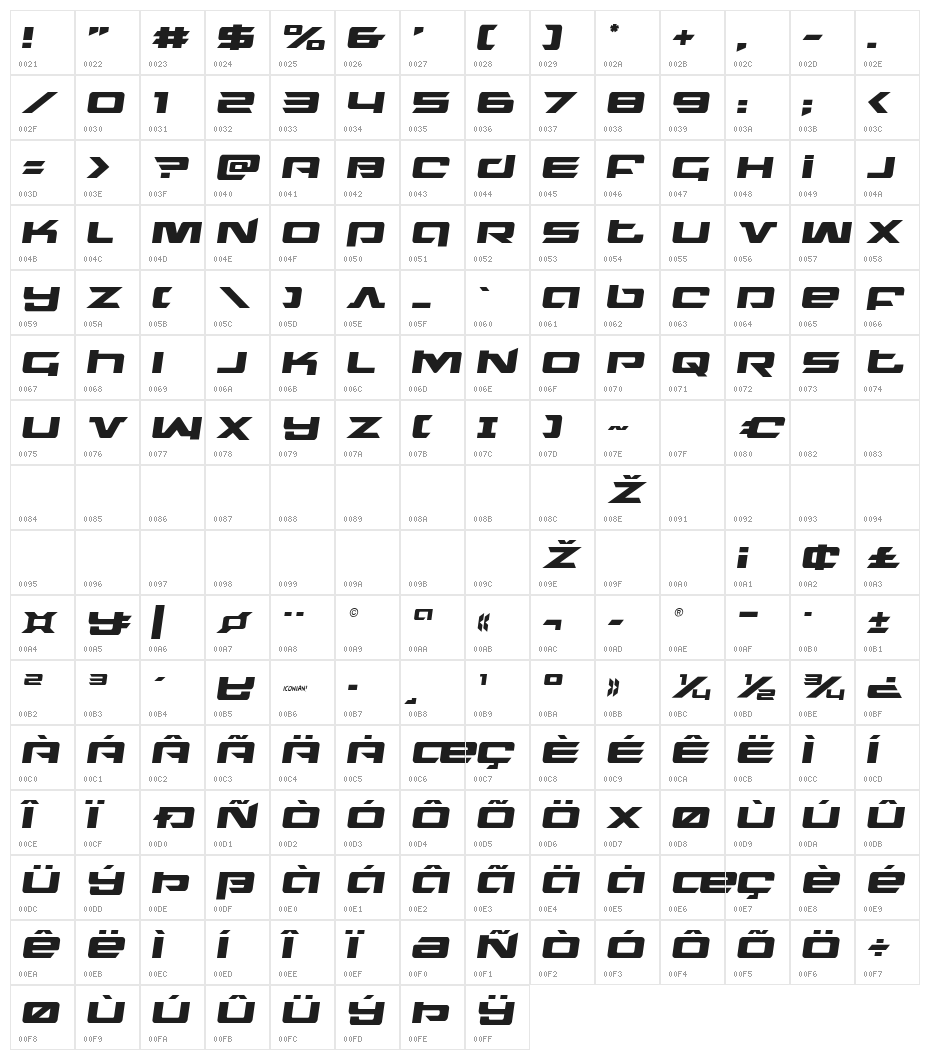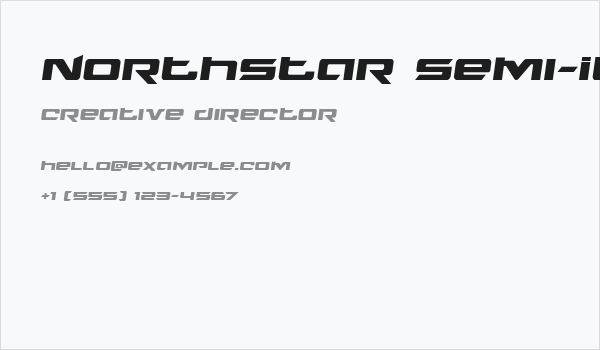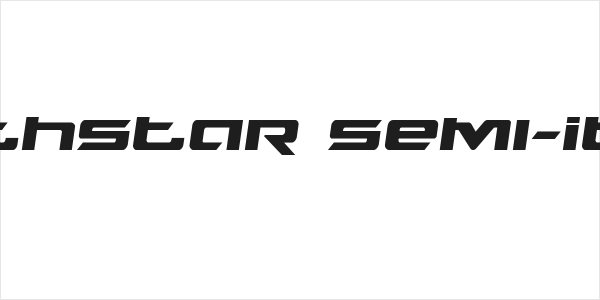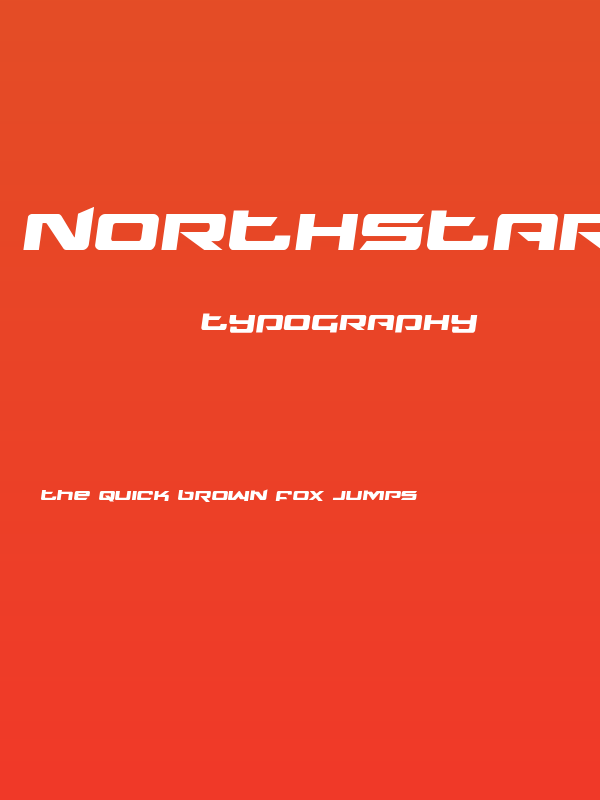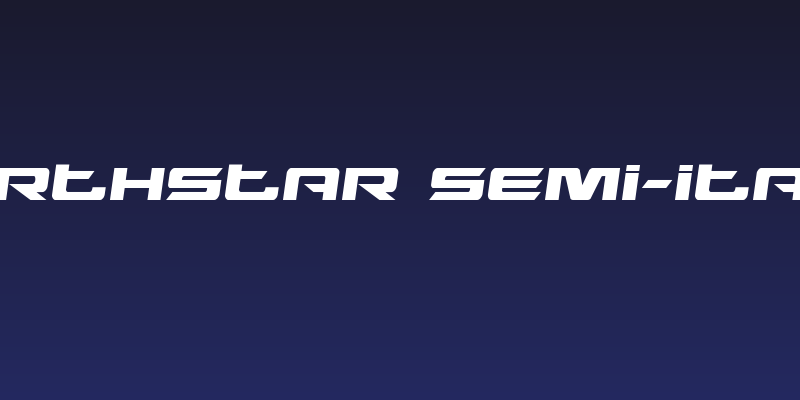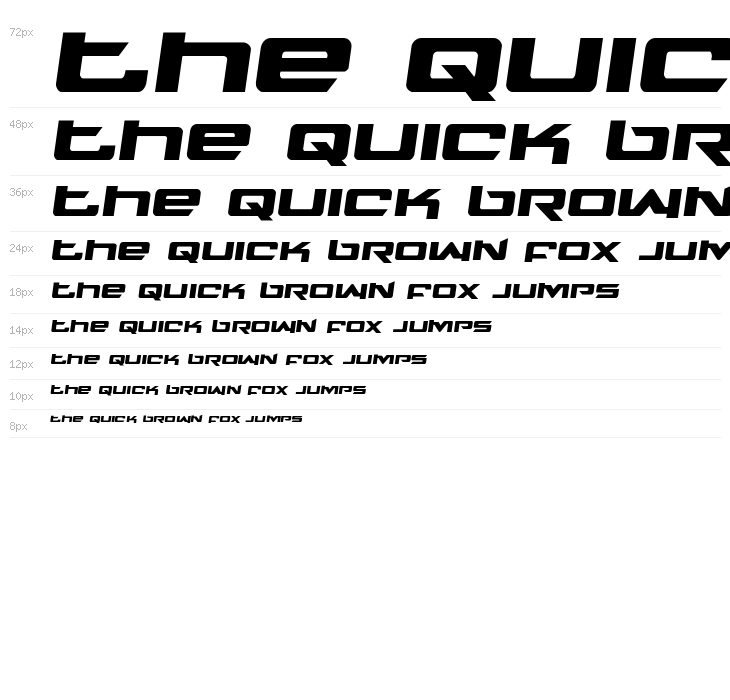
Northstar Semi-Italic Font
Northstar Semi-Italic Description
This font features a futuristic and angular design, characterized by its sharp edges and dynamic slant. The semi-italic style adds a sense of motion and modernity, making it stand out in any design. The uppercase and lowercase letters maintain a consistent geometric structure, while the numbers and special characters complement the overall aesthetic. The bold strokes and unique character shapes give it a distinctive appearance, suitable for projects that require a contemporary and edgy look.
Proposed ProjectsIdeal for technology branding, sci-fi movie posters, video game titles, and modern advertising campaigns.